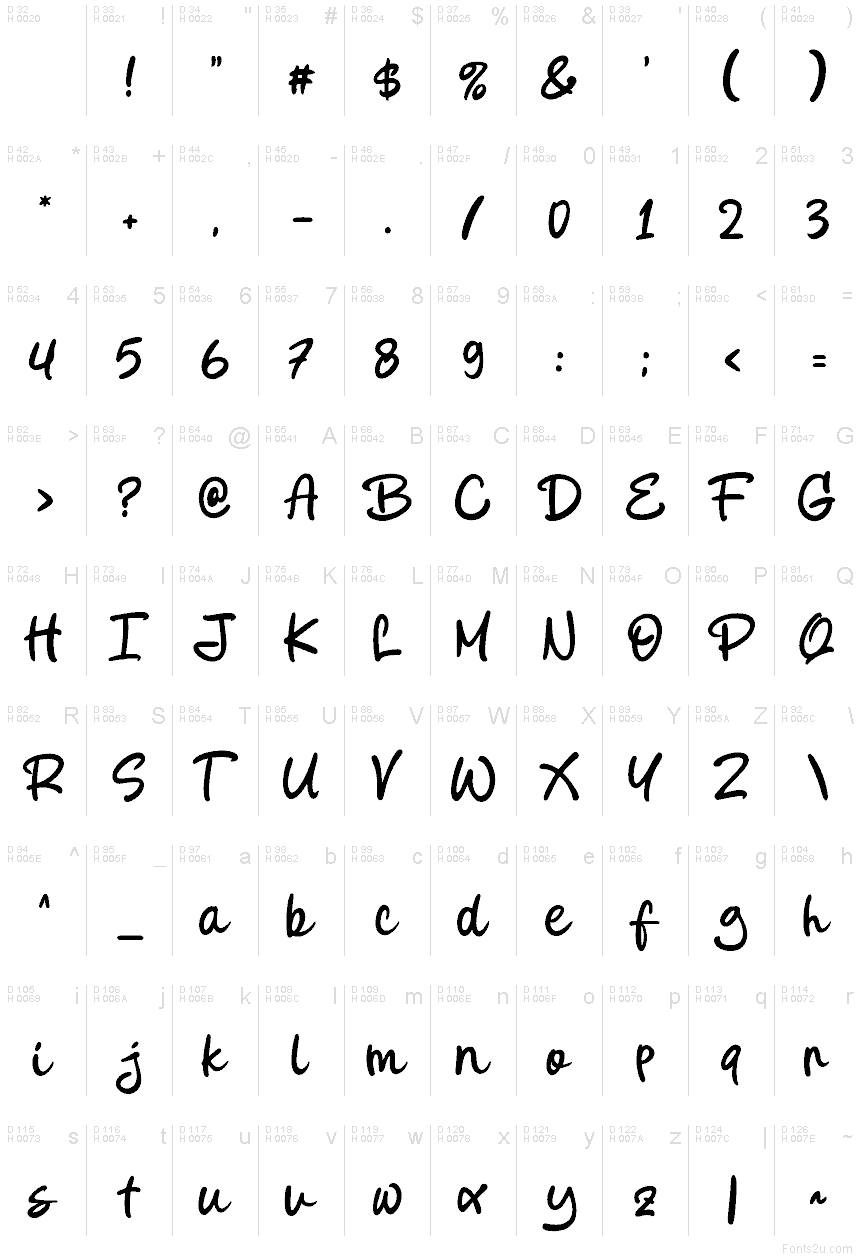
Bevagna
Bevagna font by Khurasan is a free handwritten script font that solves a familiar problem: getting genuine warmth without sacrificing clarity. Its smooth, inky strokes and rounded terminals feel friendly and unforced, while the steady rhythm and generous counters keep words readable even at smaller sizes. There’s a gentle bounce in the baseline and a soft, brush-like swell on curves that gives headlines a cozy, welcoming pull.
Using Bevagna, you can bring approachable character to bakery logos, product packaging, café menus, event invitations, social posts, and boutique branding. This free font shines on short phrases and names where its lively flow can breathe, and it stays legible in tight layouts thanks to balanced spacing. Pair it with a clean geometric sans for body copy, and keep line spacing snug to let the script’s connected strokes feel cohesive.